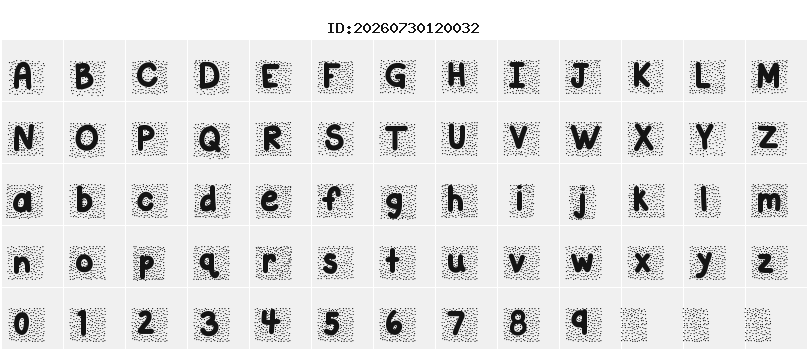
KBSnowballin Preview
• Font Name: KBSnowballin
• Font ID: Khrys:KBSnowballin
• Full Font Name: KBSnowballin
• PostScript Name: KBSnowballin
About KBSnowballin.ttf
KBSnowballin.ttf is a modern, elegant sans-serif font designed for ultimate readability and visual harmony. Perfect for branding, headlines, web design, and print materials.